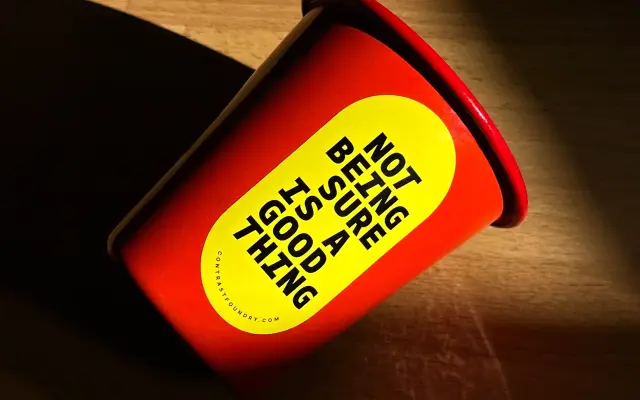
CoFo Drifter
Contrast Foundry · Egor Golovyrin · 2023
A monospaced typeface by Egor Golovyrin that counters the cold rigidity typical of the genre by slanting single-stroke verticals to create active, eye-catching diagonals.
Designed to solve a longstanding problem in monospaced type, CoFo Drifter tilts narrow verticals such as i and l to fill white space and add visual energy without sacrificing legibility. Open letterforms and vertical stroke cuts give it a friendly, approachable quality despite its technical structure. Available in seven weights from Hairline to Black with full variable font support, it covers Latin and Cyrillic and suits both branding and body typography.
The foundry explicitly describes CoFo Drifter as a monospaced typeface, designed to address the classic spacing challenges inherent to monospaced type through slanted verticals.